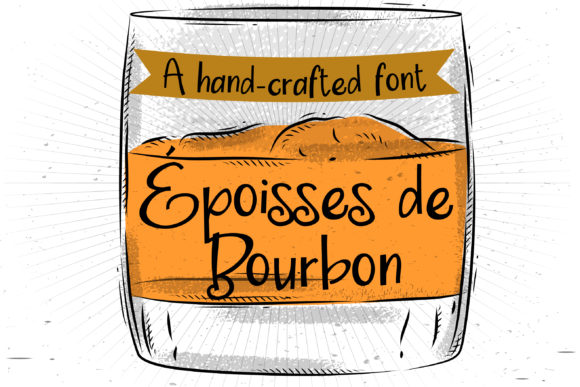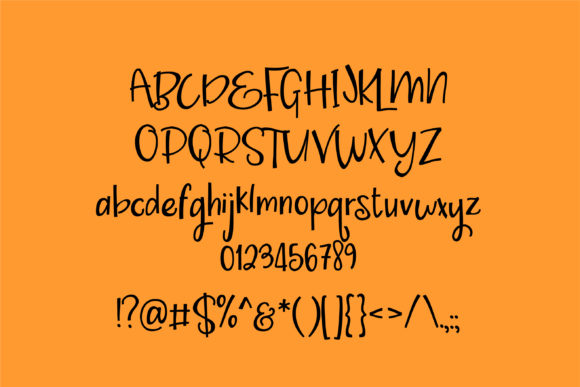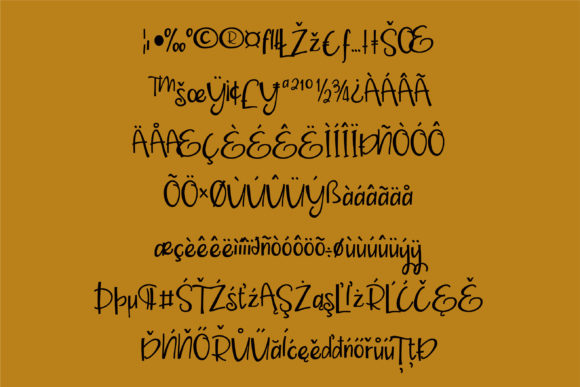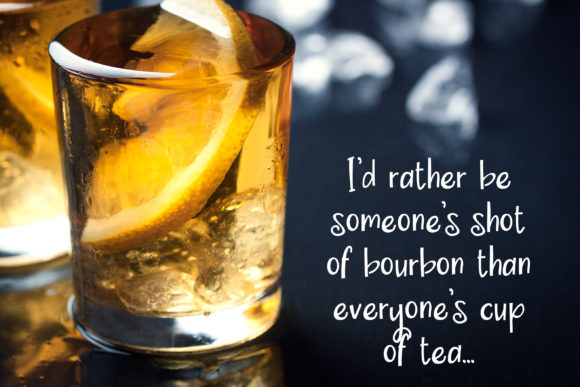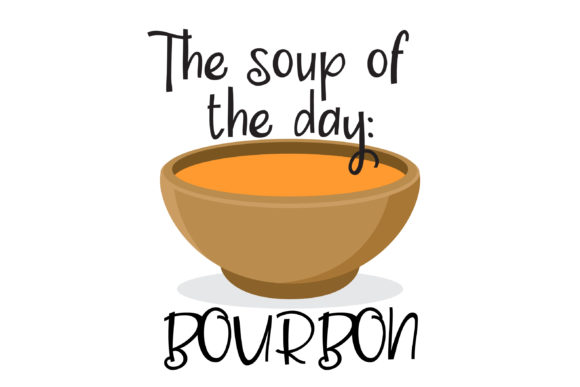
Époisses De Bourbon Font
About Époisses De Bourbon Font
This pretty hand-written script has a bouncy baseline. Pair it with it’s sister print, Époisses de Bourgone, and create stand-out design projects!